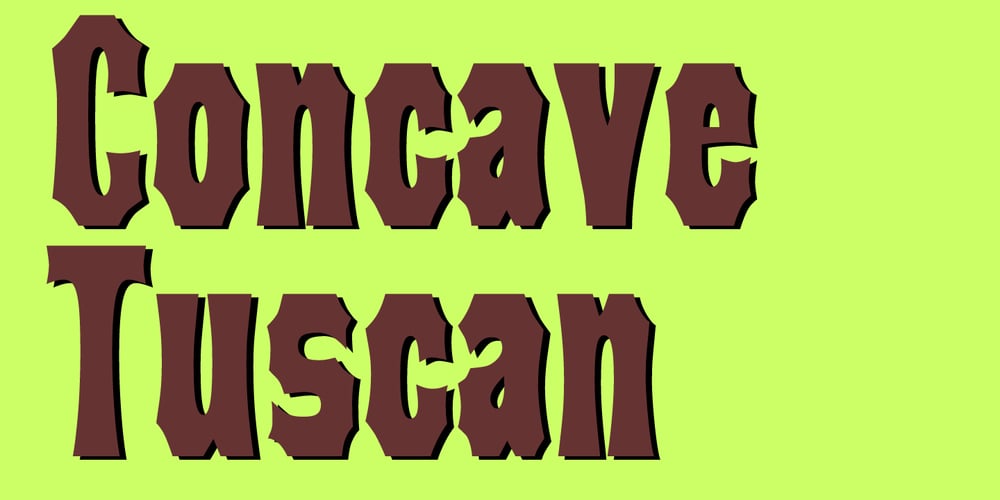
Concave Tuscan X
Concave Tuscan X font
Concave Tuscan X Font Family was designed by William Hamilton Page, Jordan Davies and published by Wooden Type Fonts. Concave Tuscan X contains 1 styles and family package options. A revival of one of the popular wooden type fonts of the 19th century, condensed, bold, a very useful design for display.